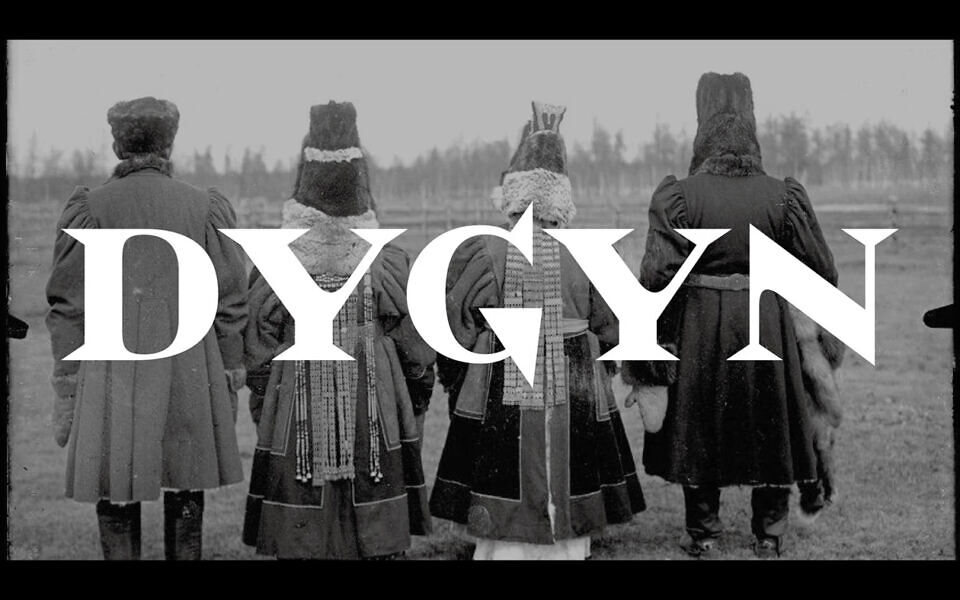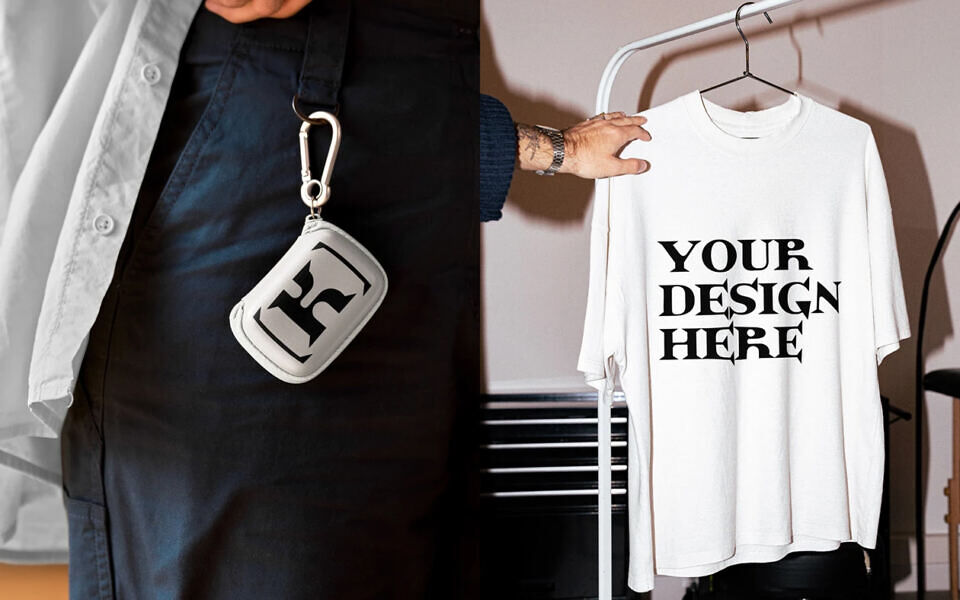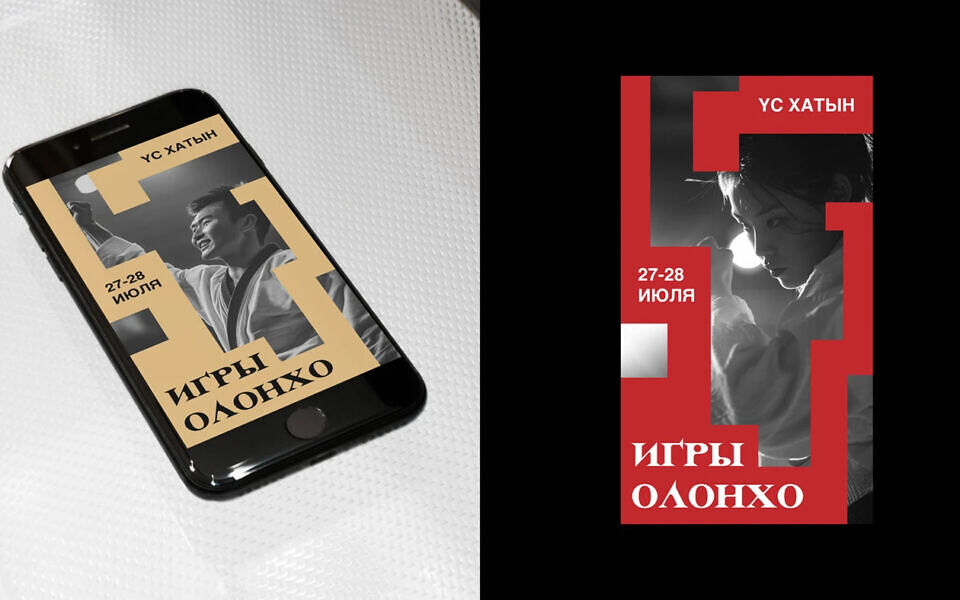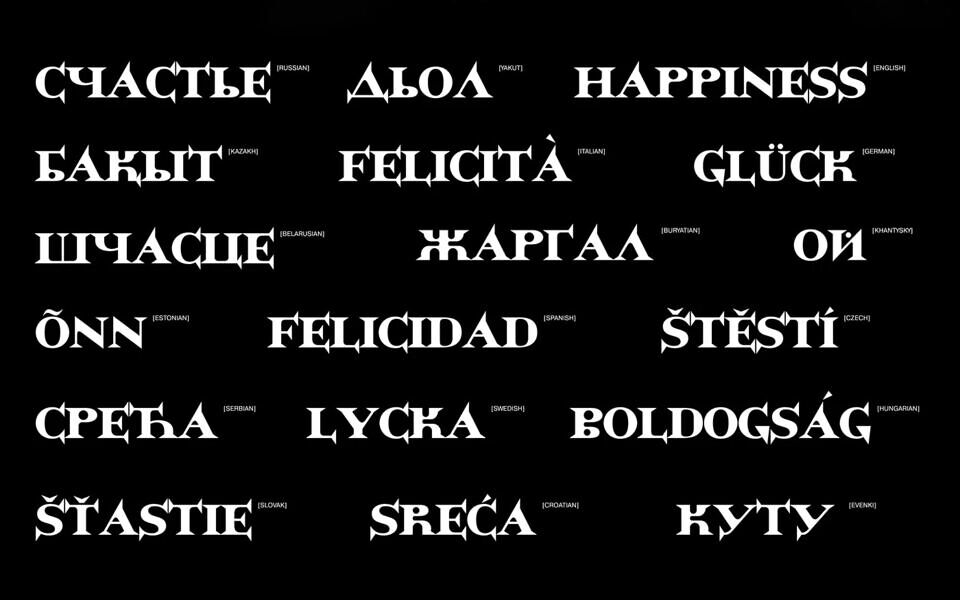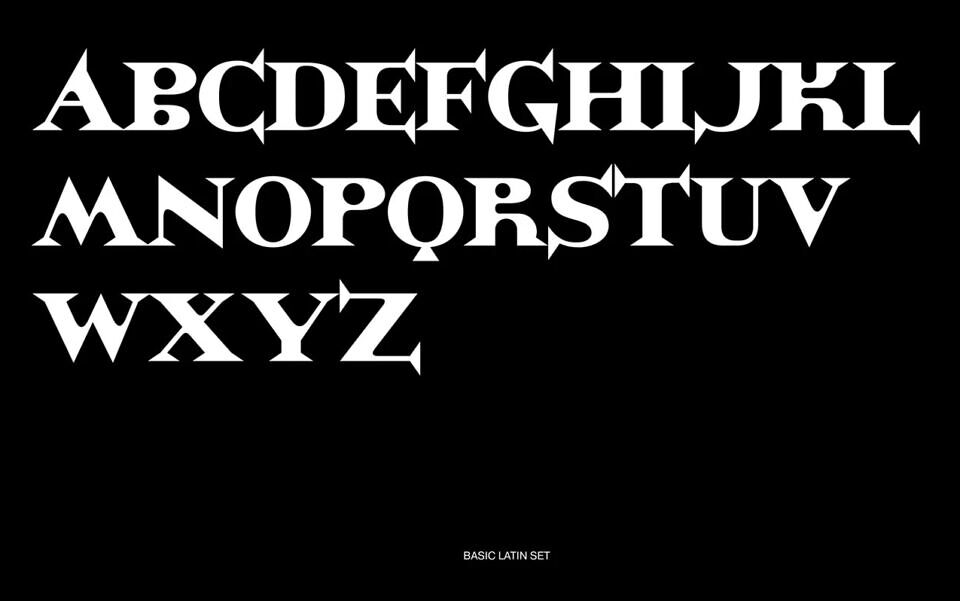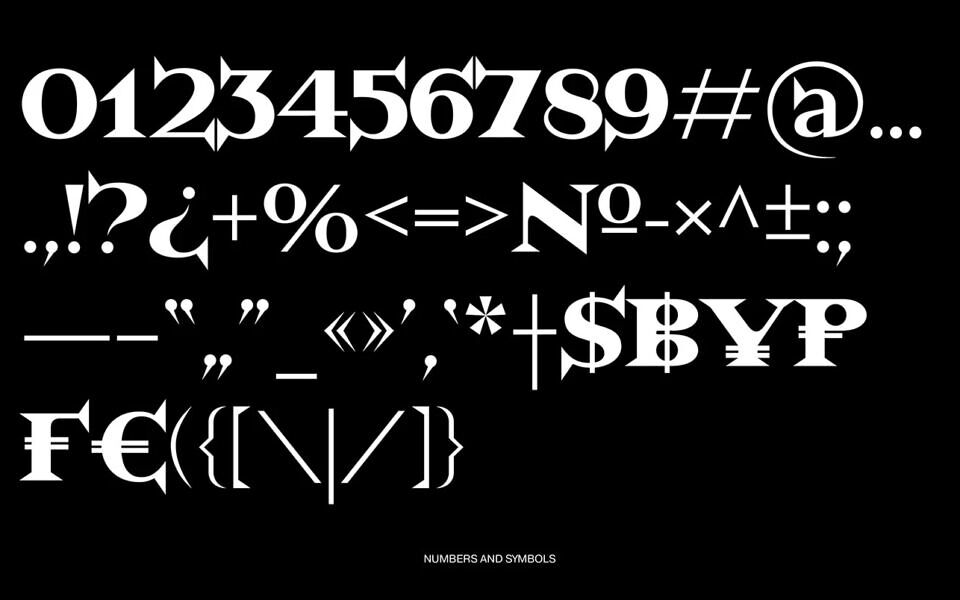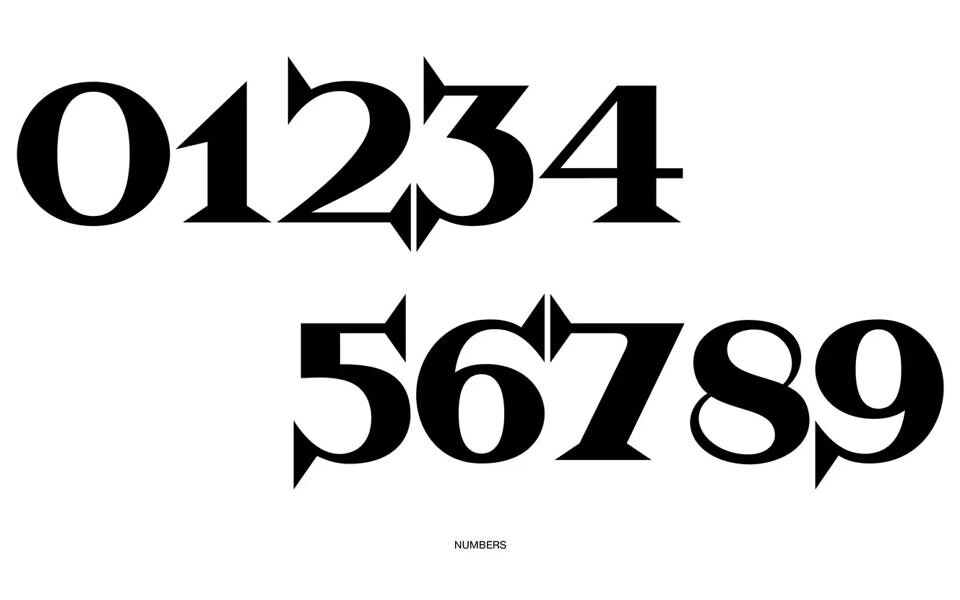
Dygyn is an accidental antique typeface with a northern soul, inspired by Sakha ornaments and Yakut books, reflecting Boris Markevich’s aesthetics. Its earthy voice and expressive graphics blend cultural authenticity with bold presence, ideal for headlines, posters, and branding. In Yakut mythology, “dygyn” means lightning, symbolizing power and speed.
Supporting Cyrillic, Latin, numbers, and basic symbols across 120 languages, it was crafted by Nana Kolodeznikova under Vladimir Anosov’s supervision, offering versatility and striking visual impact.